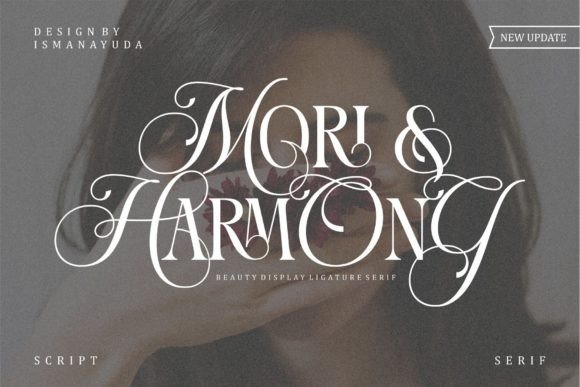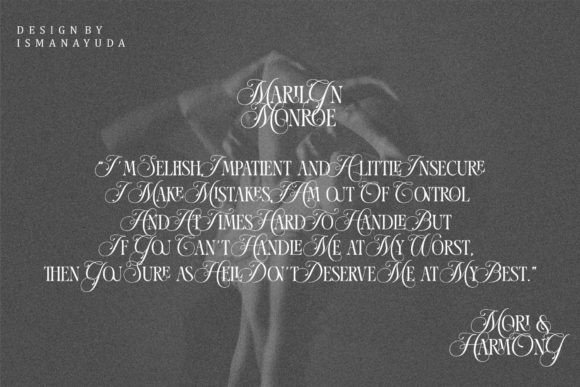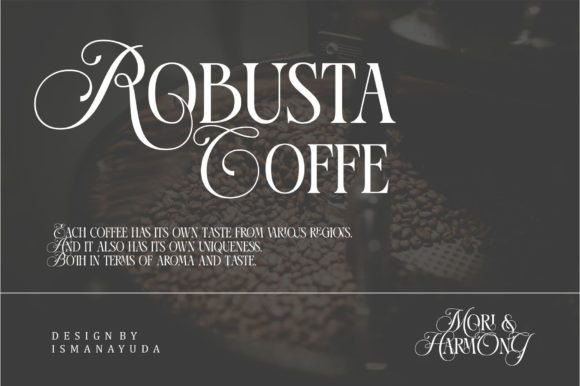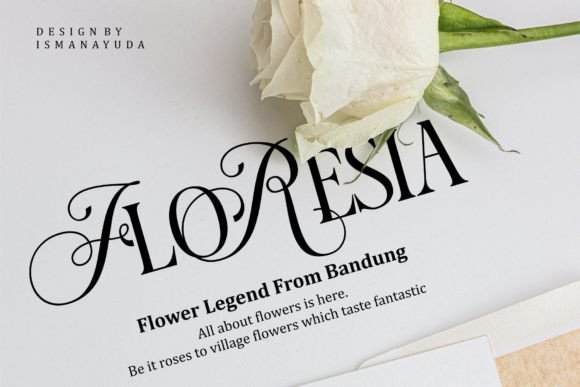
Mori Harmony Font
About the Mori Harmony Font
Explore the possibilities with Mori Harmony Font, a font that offers both beauty and functionality. Mori Harmony is a font with serif touches combined with uppercase letters in a script or italic style. This mix creates a distinctive look for the user. The font also includes many unique ligatures, featuring both lowercase and uppercase combinations.
Mori Harmony’s unique blend of serif and italicized uppercase forms makes it ideal for headlines, short text blocks on branding materials, and even select packaging applications where a touch of elegance and distinction is desired. Its decorative nature, however, renders it unsuitable for body copy or extended text; legibility suffers in long paragraphs. Avoid using it in UI elements or situations requiring high readability.
The font’s personality is sophisticated yet playful. It projects a sense of gentle luxury. Pairing it with a clean sans-serif like Open Sans for body text provides a strong contrast and excellent readability. For a more modern feel, consider pairing it with a geometric sans-serif such as Futura. Alternatively, a classic serif like Garamond can enhance its luxurious feel for high-end applications.
Using Mori Harmony sparingly, as an accent, will maximize its impact. It works particularly well for logos, invitations, and short, impactful marketing messages where a touch of distinctive flair is paramount.
Mori Harmony Font Usage Examples
Mori Harmony Font Example